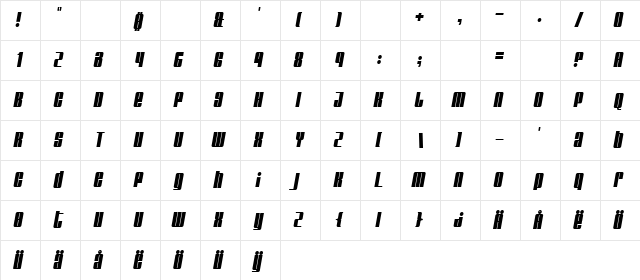
Glare Italic
Design Context for Glare Typeface
Glare offers clean, dependable letterforms without strong stylistic allegiance, making it a practical choice for designers who need flexibility. Its italic angle brings a sense of urgency and motion to the letterforms.
Pro Tip: Use Glare for emphasis, pull quotes, and subheadings where its slanted energy can add rhythm to the layout.